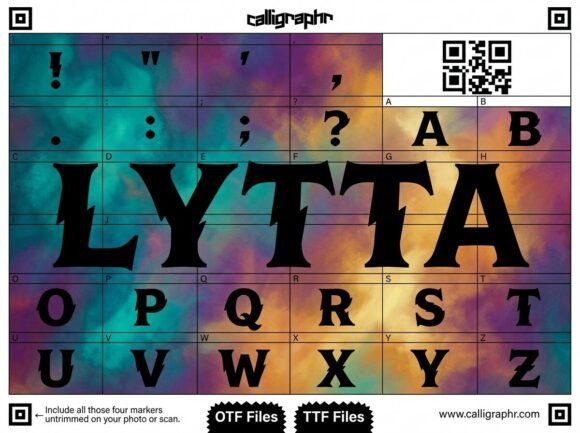
Introduction to Lytta Font
As a designer, there’s nothing quite like the thrill of bringing a creative project to life. The blank canvas stares back at you, begging for inspiration. You’re on the hunt for the perfect font to elevate your work and make it truly unforgettable. That’s where the Lytta Font comes in – a stunning display font designed to be the centerpiece of any layout.
With its unique artistic elements and strong character, the Lytta Font is perfect for creators who want to break away from the ordinary. Whether you’re working on a bold headline, creative branding, or packaging, this high-quality font delivers a professional aesthetic without compromising on personality. And the best part? It’s available for free download, making it an invaluable design resource for any creative project.
Key Features of Lytta Font
- High-quality, professional font suitable for creative projects and design resources.
- Comes in a transparent background format, allowing for easy layering and customization.
- Includes a wide range of characters, including uppercase and lowercase letters, numbers, and punctuation marks.
- Designed with a high resolution of 300 DPI, ensuring crisp and clear typography in print and digital applications.
- Perfect for use in creative projects, such as logos, branding, and typography-based designs, due to its unique and stylish design.
Honest Review: Lytta Font
As a designer, I’m always on the lookout for high-quality design resources to elevate my creative projects. Recently, I stumbled upon the Lytta Font, and I’m excited to share my honest review with you.
- Its transparent background makes it incredibly versatile, allowing for seamless integration into various design elements.
- The font’s sleek and modern design makes it perfect for a wide range of creative projects, from logos to digital art.
One thing that stood out to me was the limited character set, which may be a drawback for designers who require a more extensive range of glyphs.
Overall Impression
Overall, I’m impressed with the Lytta Font’s high quality and versatility. While it may have some limitations, it’s a valuable design resource that can add a touch of sophistication to any creative project. If you’re looking for a free, high-quality font, the Lytta Font is definitely worth checking out.
Lytta Font
The Lytta Font is a high-quality, free download design resource perfect for any creative project. With its sleek and modern design, it’s ideal for use in a variety of applications, including graphic design, digital art, and even print materials.
Tips for Getting the Most Out of Lytta Font
Some tips for getting the most out of the Lytta Font include using it with a transparent background to create a seamless design, experimenting with different font sizes and styles to add visual interest, and combining it with other design elements to create a unique look.
The Lytta Font is commonly used in a variety of design applications, including:
- Business cards and marketing materials
- Website design and development
- Print materials, such as brochures and flyers
- Digital art and graphics